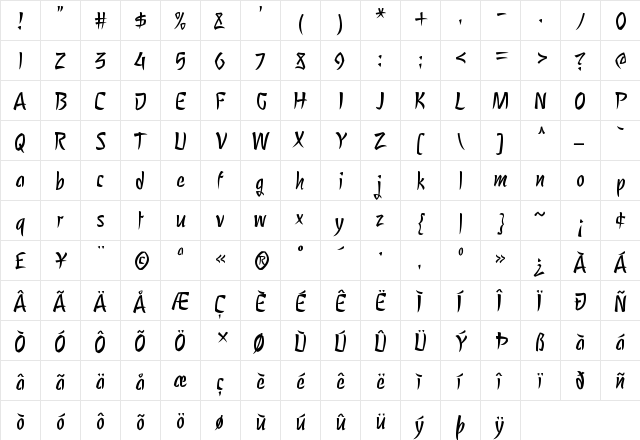
Nagomi Regular
Design Context for Nagomi Typeface
Nagomi is a composed and adaptable typeface that performs quietly and consistently across a wide range of design contexts.
Pro Tip: Use Nagomi in both headline and body roles to test its range before committing to a single application.